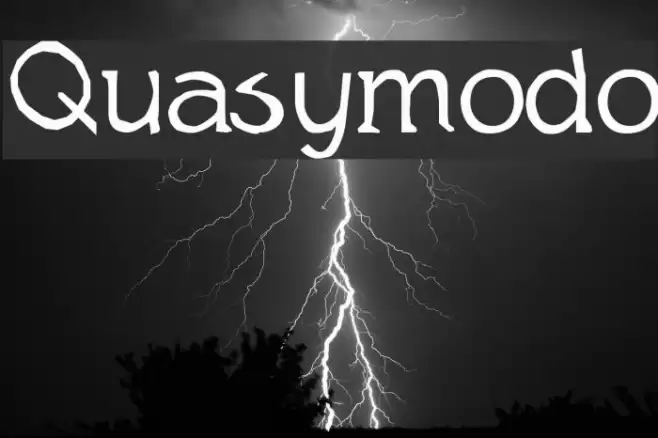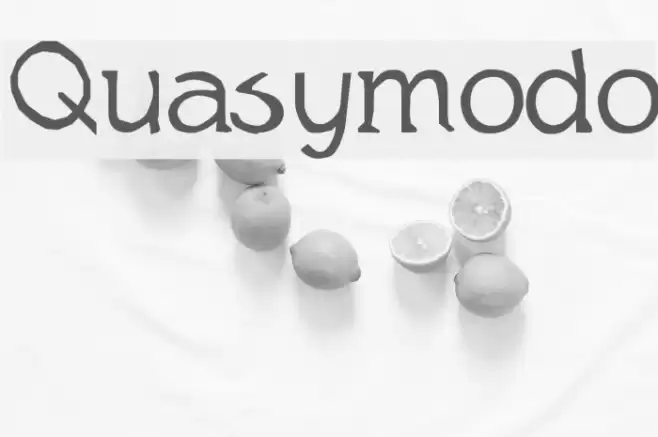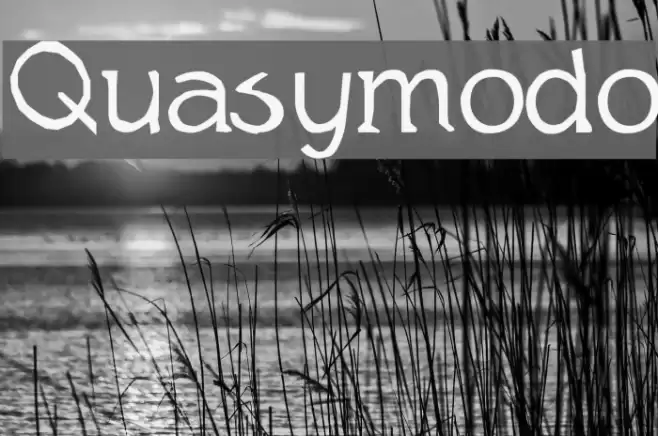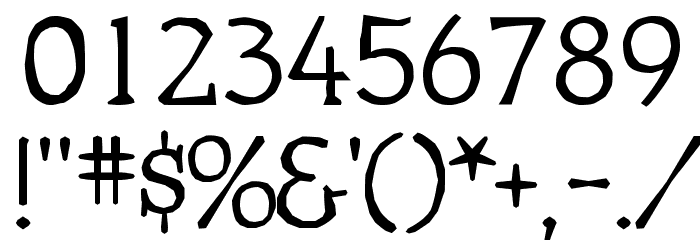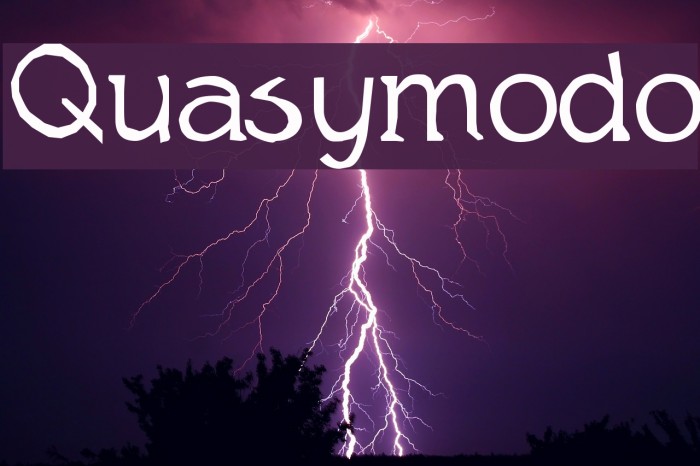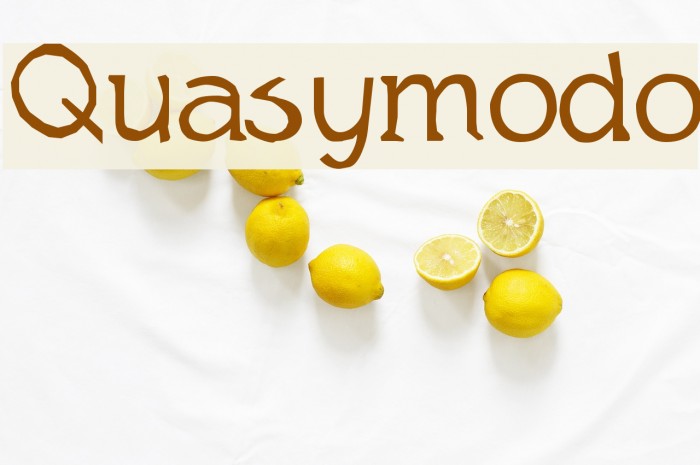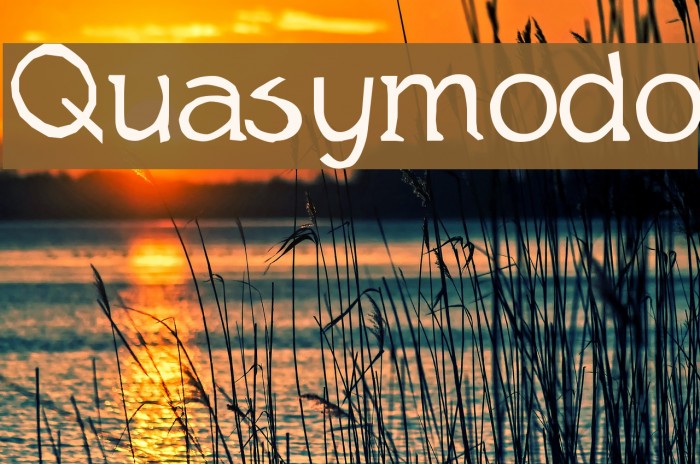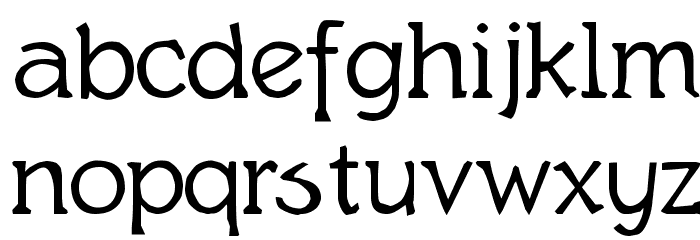
Quasymodo Font
Quasymodo Description
This font features a unique and artistic design with a slightly irregular and hand-drawn appearance. The characters have a whimsical quality, with varying stroke widths that add a playful touch. The uppercase letters are bold and prominent, while the lowercase letters maintain a consistent style that complements the overall look. The numerals are distinct and easy to read, with a similar artistic flair. Special characters are included, maintaining the same quirky style. This font is ideal for projects that require a creative and informal touch.
A whimsical, hand-drawn style font with artistic flair from Uncategorized fonts.
- Proposed Projects: Ideal for children's books, creative posters, playful branding, and artistic invitations.
- Overall Style: Artistic, Playful